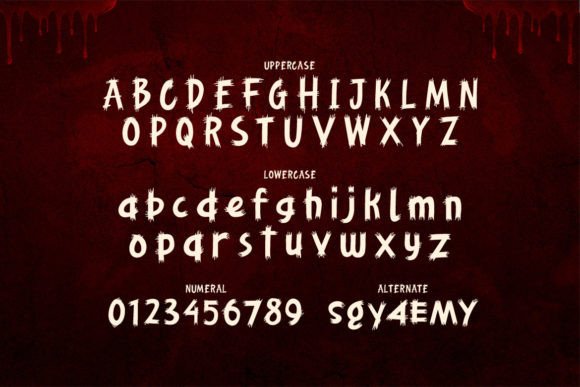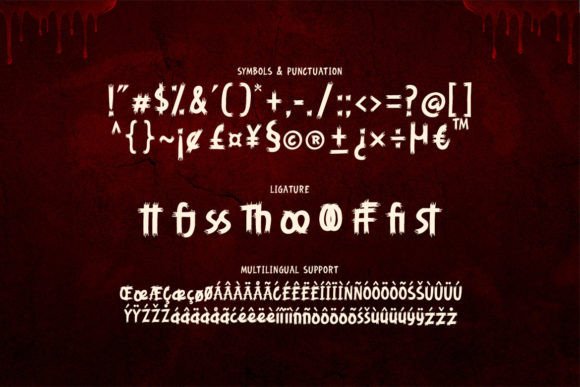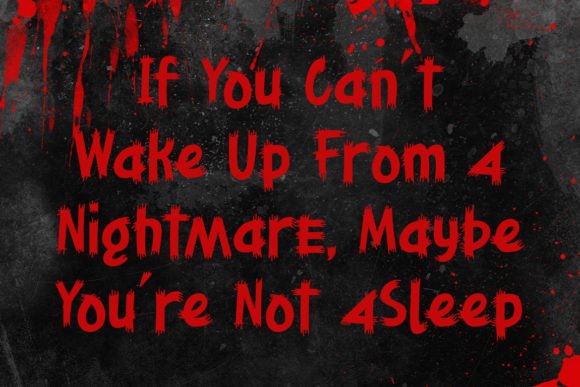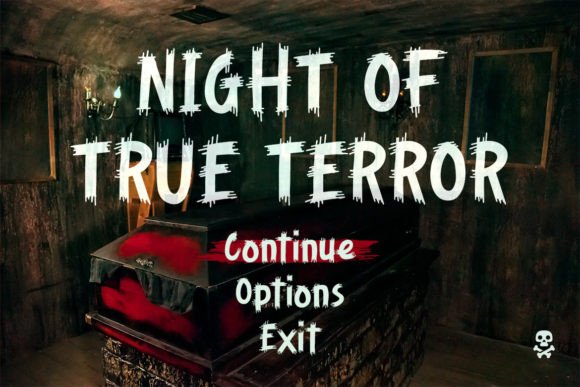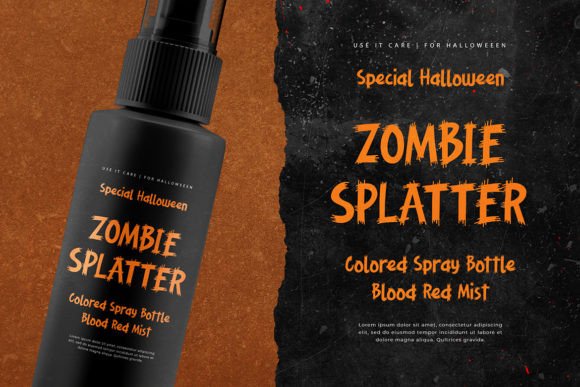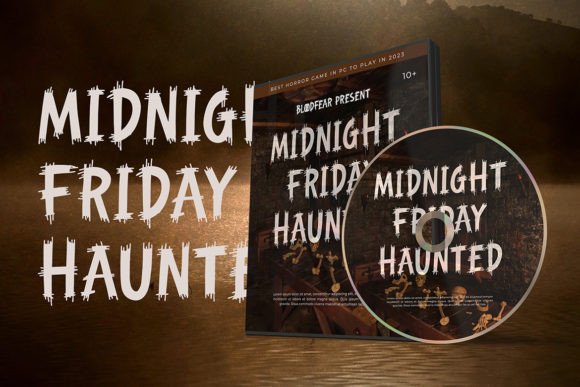
Introducing Bloodfear Font: Unleash the Horror in Your Designs
Are you looking for a font that will add a touch of fear and horror to your designs? Look no further than Bloodfear, a terrifying font that will send shivers down your spine. With its spooky and unsettling design, Bloodfear is perfect for projects that require a eerie atmosphere, such as book covers, posters, branding, packaging, logos, and more.
The Design of Bloodfear
Bloodfear features a unique and terrifying design that is sure to grab attention. The font’s letters are designed to resemble blood-stained and torn paper, giving it a creepy and unsettling feel. The font’s edges are rough and jagged, adding to the overall horror theme. The design of Bloodfear is versatile and can be used in a variety of contexts, from horror movie posters to creepy branding and packaging.
Uses for Bloodfear
Bloodfear is a versatile font that can be used for a wide range of projects, including:
- Book Covers: Add a touch of horror to your book covers with Bloodfear. Perfect for horror, thriller, and suspense novels.
- Posters: Create eye-catching posters for horror movies, haunted houses, or creepy events.
- Branding: Add a touch of fear to your brand with Bloodfear. Perfect for companies that want to create a spooky and unsettling atmosphere.
- Packaging: Create creepy packaging for Halloween treats, horror-themed products, or spooky gifts.
- Logos: Create a terrifying logo for your horror-themed business or project.
Why Choose Bloodfear?
There are many fonts available that claim to be horror-themed, but Bloodfear stands out from the rest. Here are just a few reasons why:
- Unique Design: Bloodfear features a unique and terrifying design that is sure to grab attention.
- Versatility: Bloodfear can be used for a wide range of projects, from book covers to logos.
- Eerie Atmosphere: Bloodfear is perfect for creating an eerie atmosphere in your designs.
Tips for Using Bloodfear
Here are a few tips for using Bloodfear in your designs:
- Use it Sparingly: Bloodfear is a bold font, so use it sparingly to avoid overwhelming your design.
- Pair it with Other Fonts: Pair Bloodfear with other fonts to create a unique and interesting contrast.
- Have Fun: Most importantly, have fun with Bloodfear! The font is designed to be creepy and unsettling, so don’t be afraid to get creative.
Bloodfear is a terrifying font that is perfect for designers who want to add a touch of fear and horror to their designs. With its unique and unsettling design, Bloodfear is sure to grab attention and create an eerie atmosphere. Whether you’re designing book covers, posters, branding, packaging, or logos, Bloodfear is a versatile font that can be used in a wide range of contexts. So why wait? Download Bloodfear today and unleash the horror in your designs!